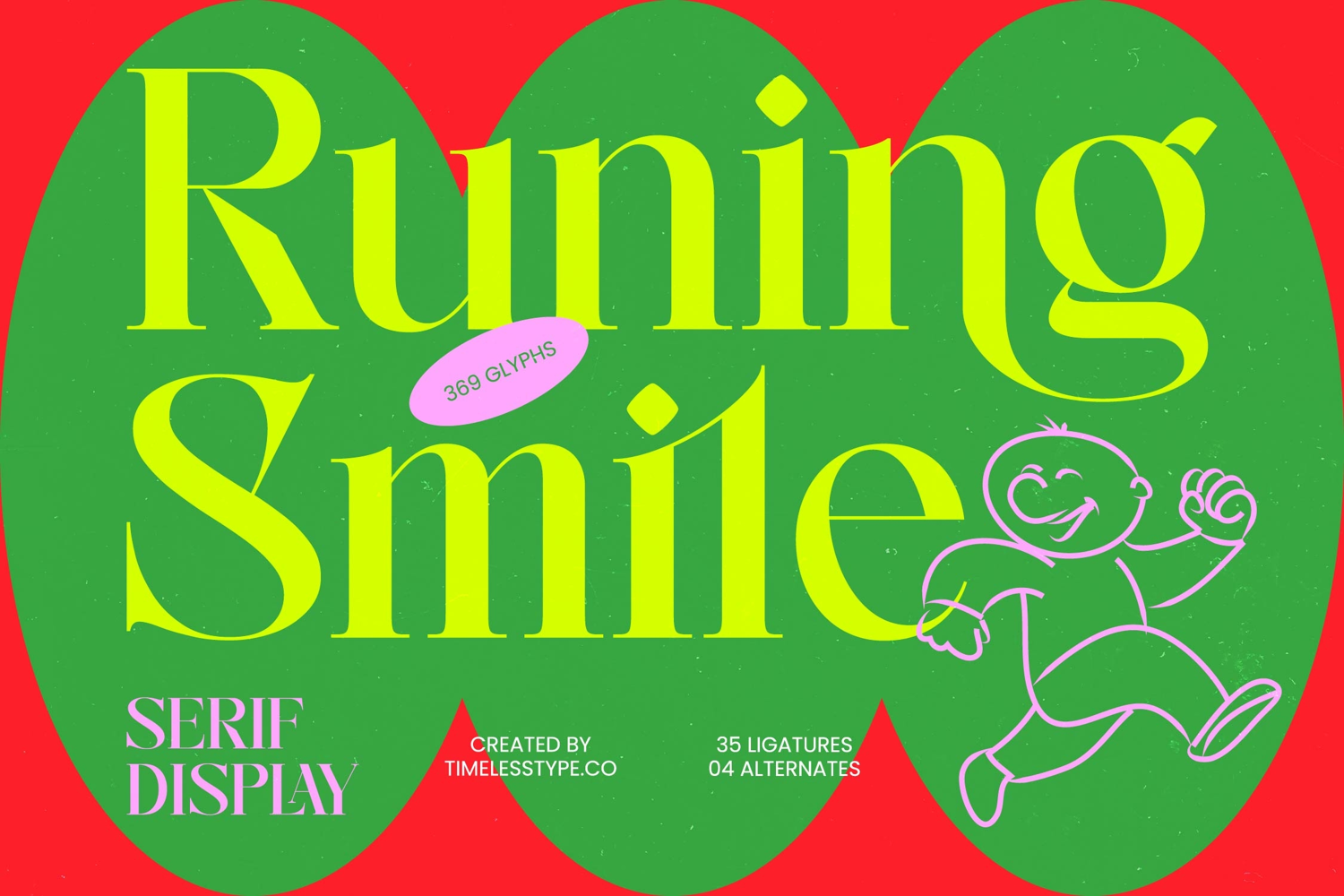
Runing Smile - Serif Display
Elevate your design projects with the striking elegance of Runing Smile - Serif Display. This high-contrast serif typeface combines classic sophistication with a contemporary edge. Its bold letterforms and sharp serifs create a commanding visual presence that demands attention. Runing Smile - Serif Display is meticulously crafted for designers who seek a balance between timeless tradition and modern flair, making it an essential addition to any creative toolkit.
Experience unparalleled flexibility through a rich library of creative features. Boasting 369 glyphs, including 35 unique ligatures and 04 stylish alternates, this font allows for unlimited customization and typographic expression. With its extensive multilingual support, Runing Smile - Serif Display adapts seamlessly across global markets, making it incredibly versatile for international projects. It ensures your brand message remains consistent and impactful regardless of the geographic audience.